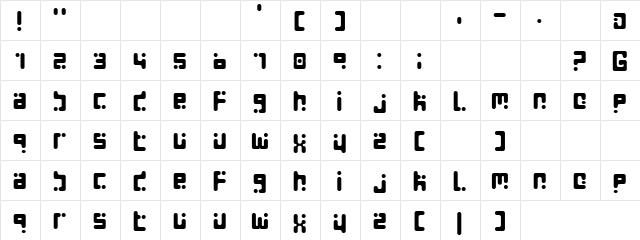
Seeds Normal
Design Context for Seeds Typeface
Seeds is a composed and adaptable typeface that performs quietly and consistently across a wide range of design contexts.
Pro Tip: Pair Seeds with a font of contrasting weight or personality to build a more expressive typographic hierarchy.